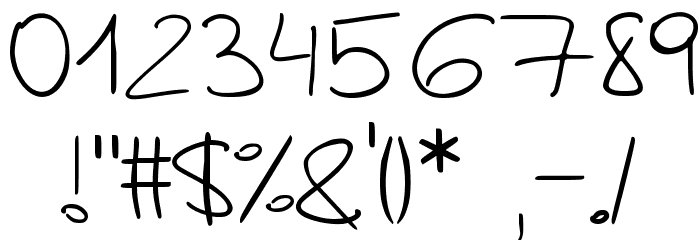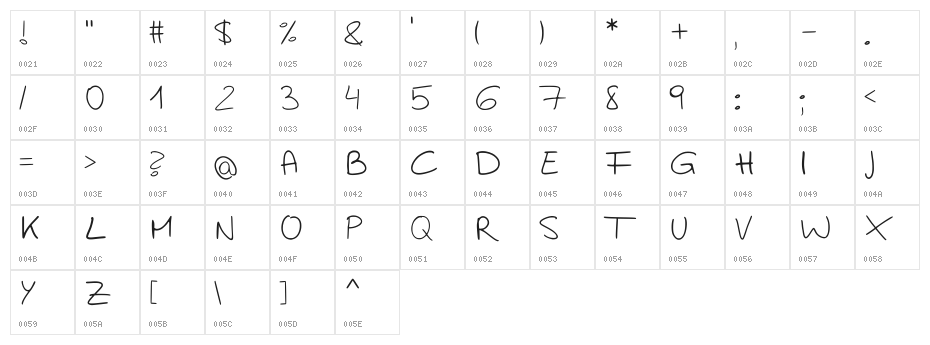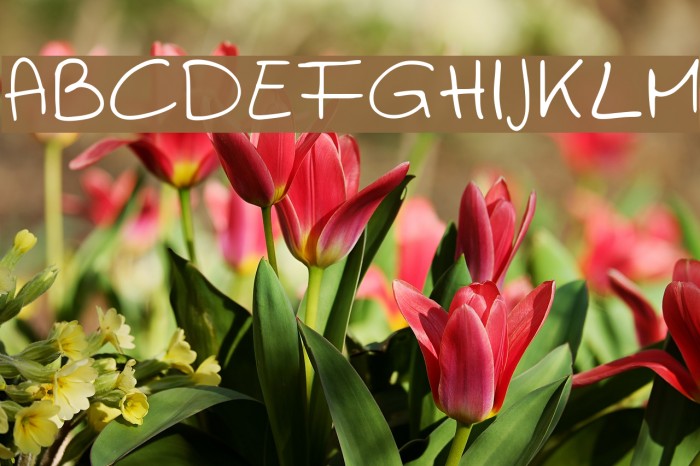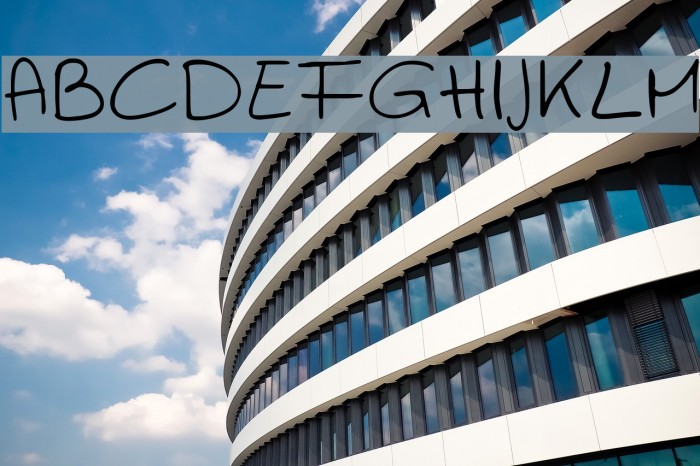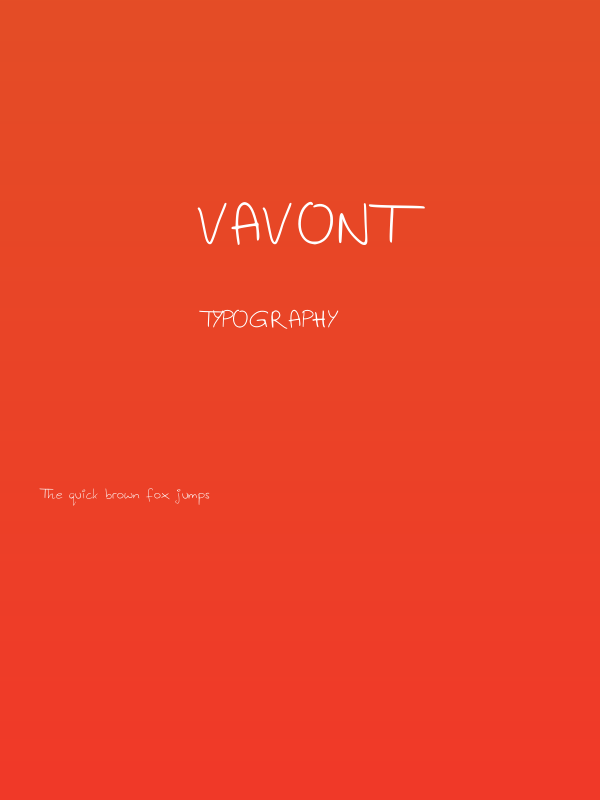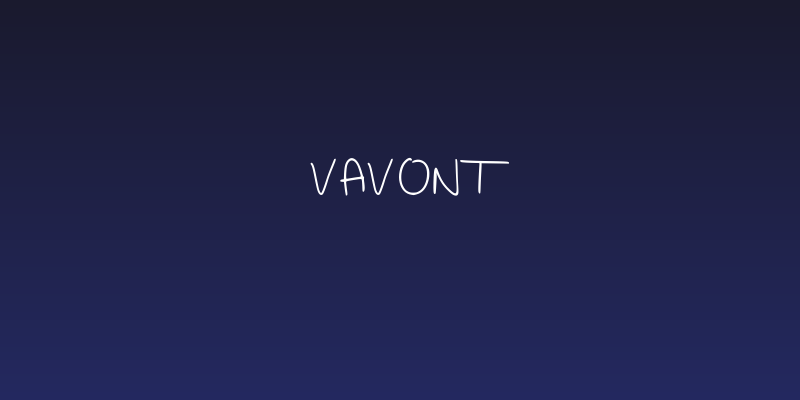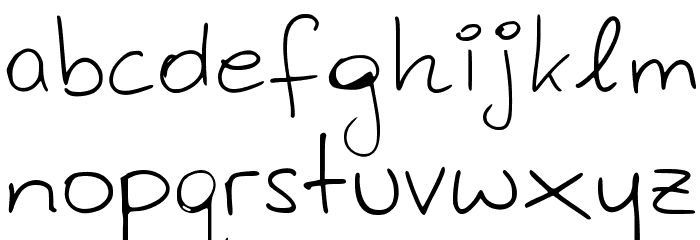
Vavont Font
Vavont Description
This font features a playful and casual handwritten style, characterized by its smooth, flowing lines and slightly irregular shapes. The uppercase and lowercase letters maintain a consistent height, creating a harmonious appearance. The numerals are clear and legible, matching the overall informal tone. Special characters are integrated seamlessly, maintaining the font's whimsical nature. The strokes are uniform in thickness, contributing to a balanced and approachable aesthetic. This font exudes a friendly and relaxed vibe, making it ideal for projects that require a personal touch.
| Use Case | Greeting cards, Invitations, Informal branding |
| Proposed Projects | Ideal for greeting cards, personal invitations, children's books, and informal branding. |